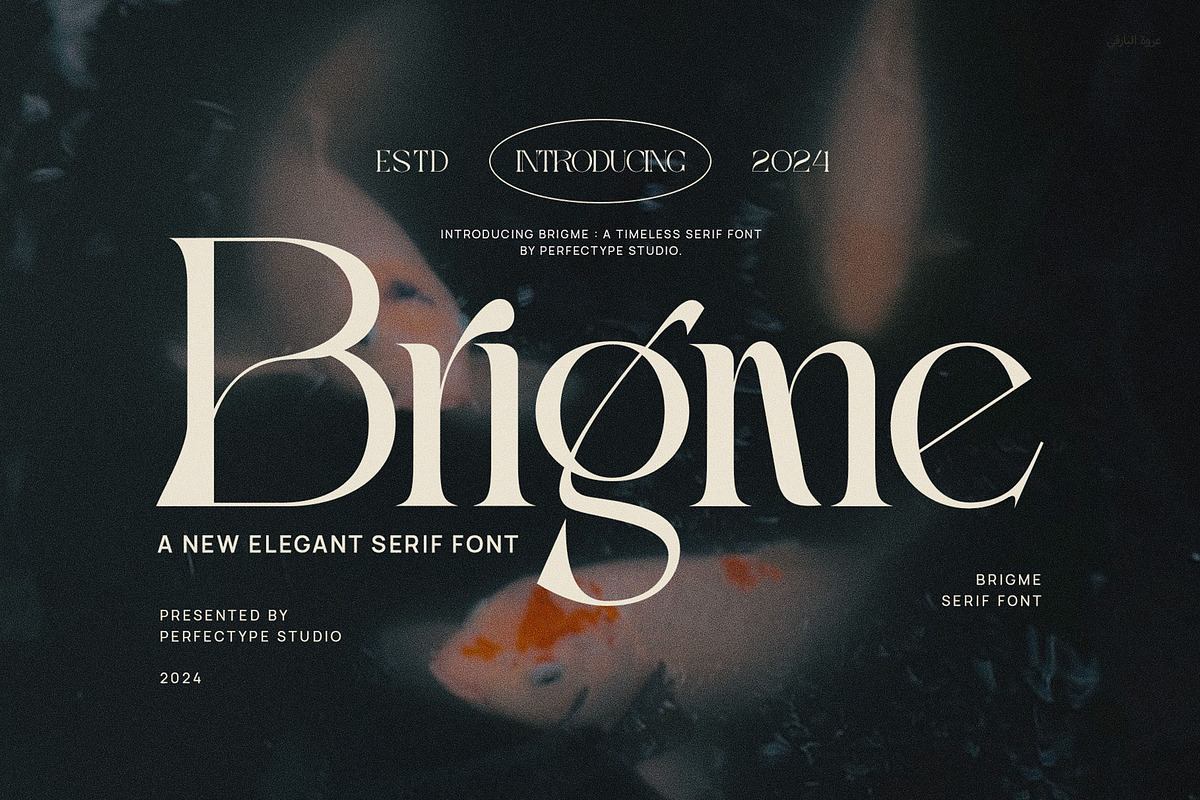
Brigme Elegant Serif Font Typeface Free Download
Brigme Elegant Serif Font Typeface Free Download is a refined and sophisticated serif typeface designed to bring a timeless elegance to your designs. With its classic letterforms, balanced proportions, and clean lines, this font is perfect for high-end branding, editorial layouts, luxury product packaging, invitations, and any project that calls for a polished and professional look.
Brigme Elegant Serif Font Typeface Free Download combines modern style with traditional elements, ensuring versatility and legibility in both digital and print formats. Its elegant, minimalist design makes it ideal for fashion, corporate, and creative industries, giving your projects a premium feel.